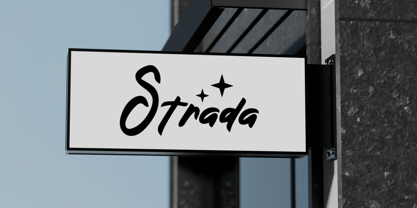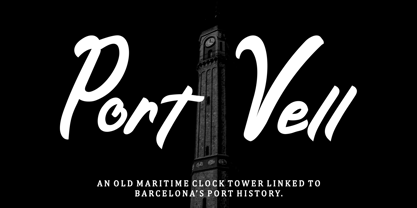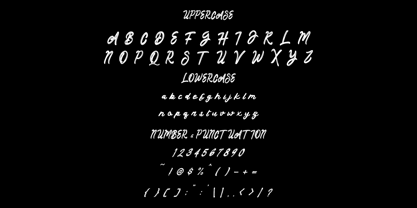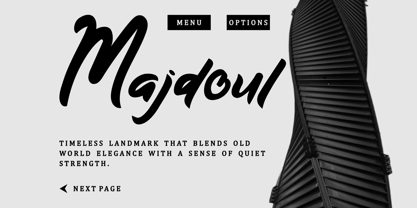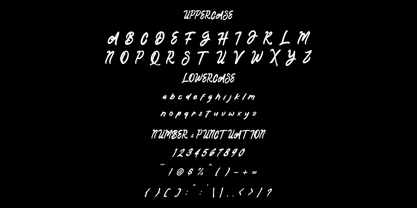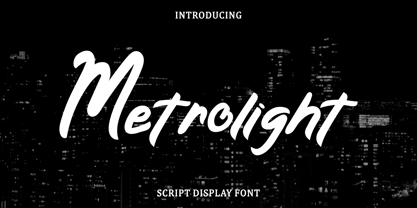
Metrolight
by Shanaf
The Metrolight Font Family was designed by Yesie Erma Yunita and published by Shanaf. Metrolight contains 2 styles and family package options. More about this family
Metrolight Script Display Font presents smooth handwritten strokes with confident and fluid movement. The letterforms appear moderately thick with soft tapering at stroke endings. Each character flows naturally with gentle curves and balanced proportions. The ascenders rise tall while descenders extend with relaxed motion. This structure creates an elegant rhythm across words and brand names. Stroke contrast remains subtle, keeping the script readable at display sizes. The shapes look organic and slightly dynamic rather than rigid or geometric. This gives the lettering a contemporary script personality with urban influence. Metrolight Script Display Font works well for bold logotype construction and expressive titles. The connected strokes allow words to feel cohesive and visually unified. Designers can build strong brand signatures using its fluid and confident letterforms. This font suits branding projects that require modern script personality and clear visual identity. It fits logos for creative studios, cafes, restaurants, and lifestyle brands. The flowing structure also works for posters, advertising headlines, and promotional graphics. Designers can apply it to packaging titles, signage, and storefront lettering. The expressive rhythm helps create memorable quotes and inspirational phrases. It also fits greeting cards, invitations, stickers, and crafting projects. The script structure adapts well to magazine titles and book cover typography. Businesses seeking contemporary handwritten branding benefit from its balanced and readable structure. Metrolight Script Display Font helps designers craft recognizable logotypes with modern script lettering.